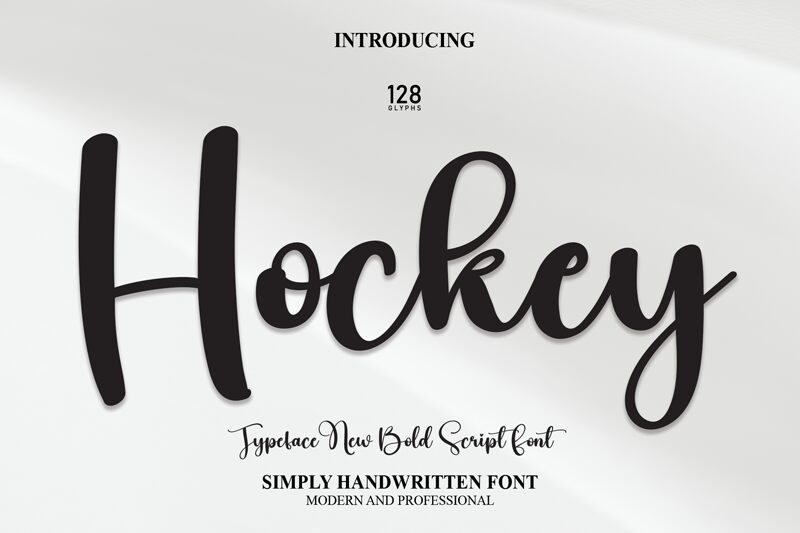
Hockey
Hockey, designed by Scratchones, is a captivating modern calligraphy font that brings elegance and versatility to your projects.
With its fluid strokes and graceful curves, this font adds a touch of sophistication to wedding invitations, greeting cards, and branding materials. Its bold weight is perfect for eye-catching headlines on posters and magazine covers. The Hockey font's playful yet refined style also complements handmade crafts, such as personalized stationery or artisanal product packaging.
Let Hockey inspire your creativity and elevate your designs with its contemporary charm.